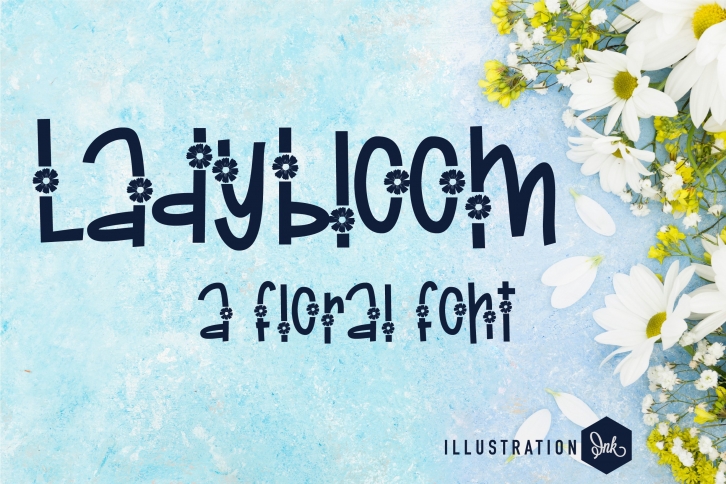
ZP Ladybloom is a gorgeous font that was realeased on July 28, 2022. The font can be used in many style contexts and design environments. Perfect for invitations, magazines, websites, logos, and more! It was designed by Illustration Ink and the file size is 19.35 MB. Thanks for checking out this font!